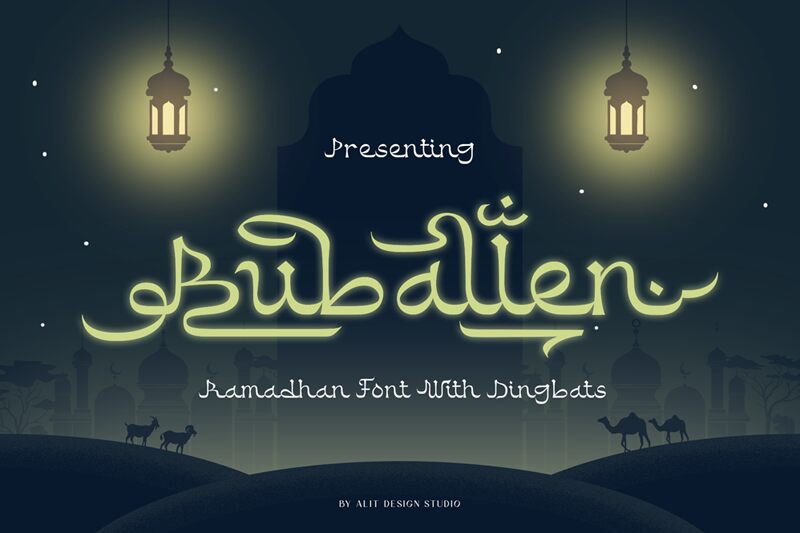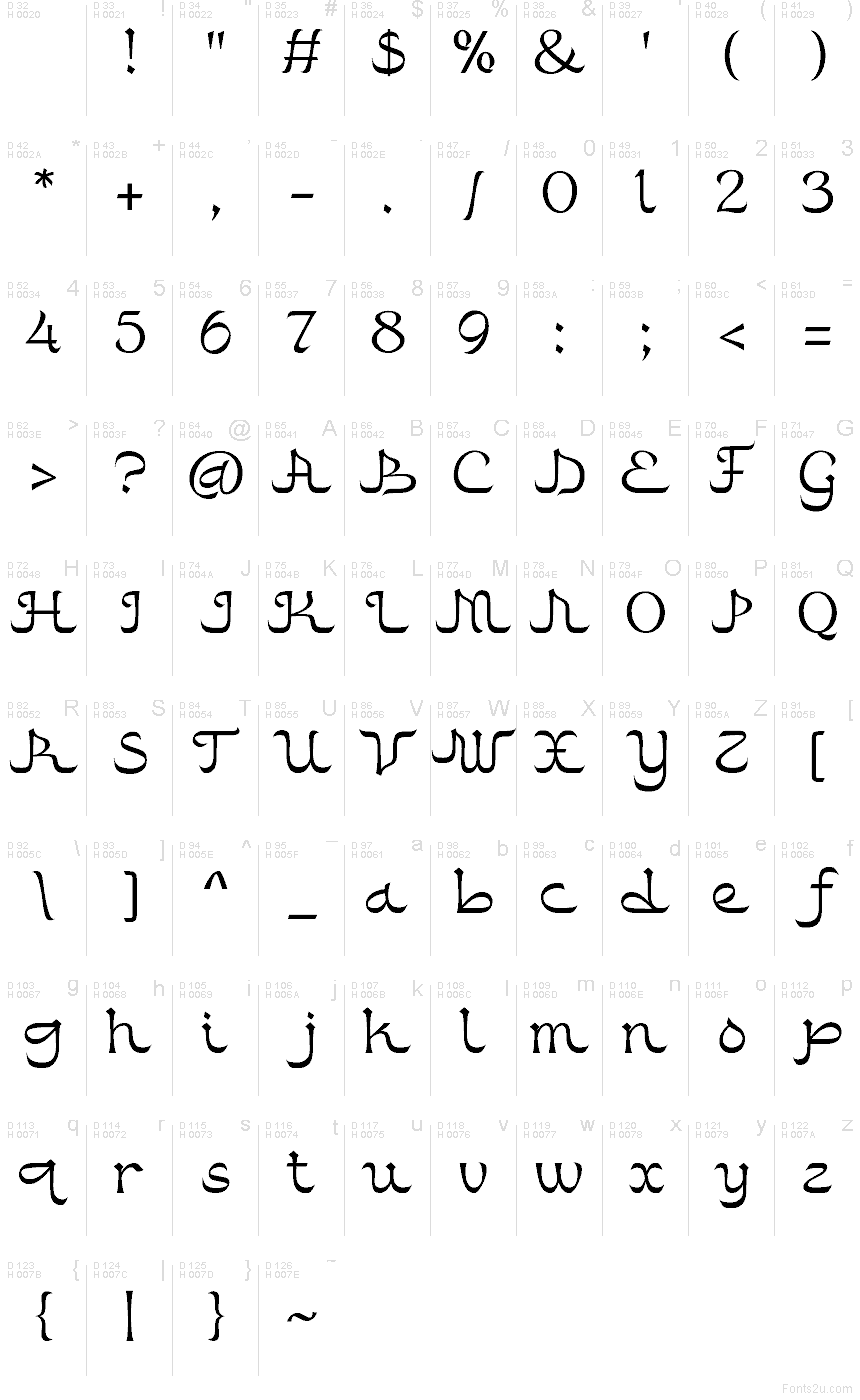
Buballen free version Regular
Buballen font by Alit Design is a free decorative faux-Arabic typeface that wraps Latin letters in flowing, ink-brushed curves. Each stroke feels hand-drawn, with tall, looping forms and subtle hooks that echo Middle Eastern calligraphy while staying clearly readable. The rhythm of the letters creates a continuous, ribbon-like line, giving your titles a sense of motion and mystique without slipping into chaos.
Using Buballen, you can instantly set a cinematic, exotic mood for fantasy book covers, themed restaurant menus, hookah lounge logos, event posters, game titles, or spice and tea packaging. This free font shines at large sizes where its sweeping curves and sculpted details can breathe. Pair Buballen with a simple geometric sans-serif for supporting text to keep layouts balanced and easy to read.